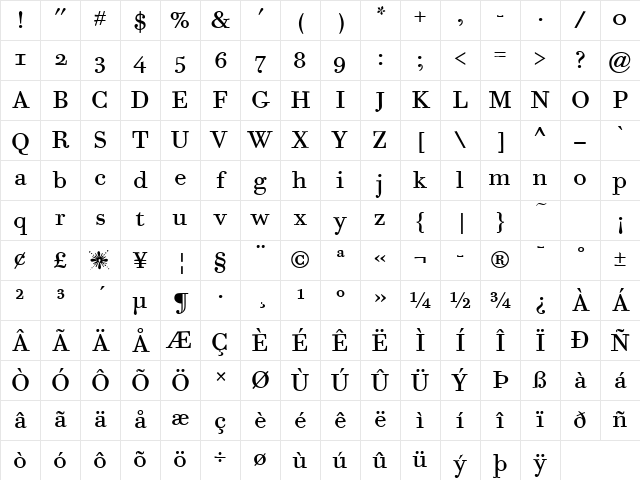
Complete Bodoni Six OS ITC TT Book glyph index. Displaying only characters natively supported by Bodoni Six OS ITC TT Book font.
Bodoni Six OS ITC TT is a composed and adaptable typeface that performs quietly and consistently across a wide range of design contexts.